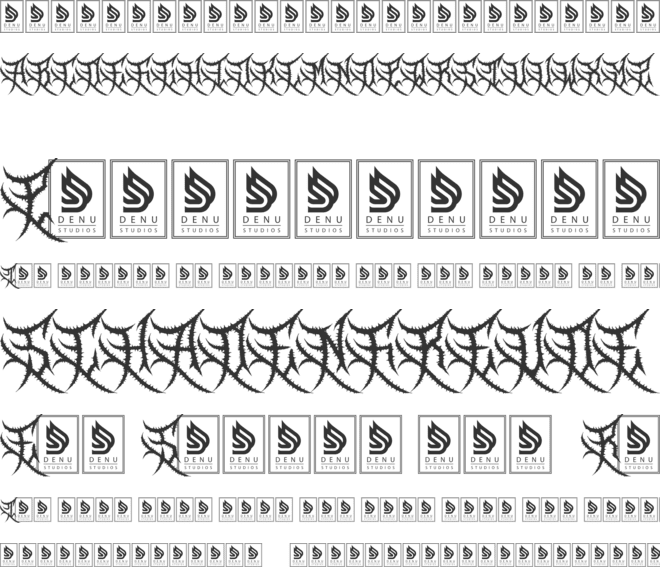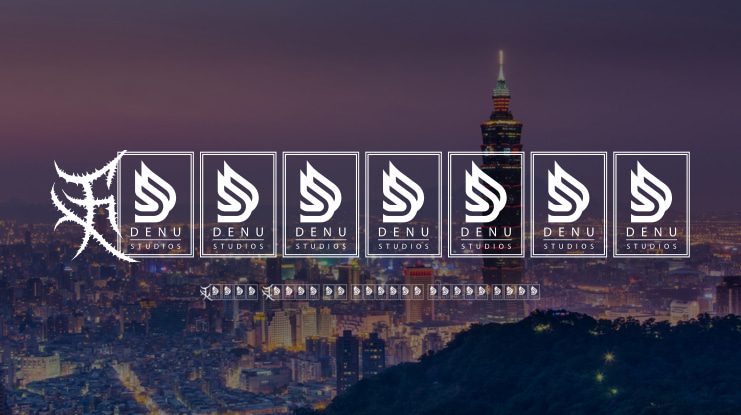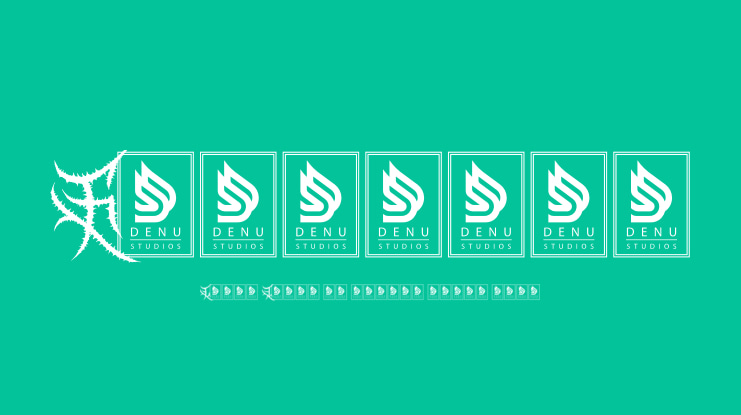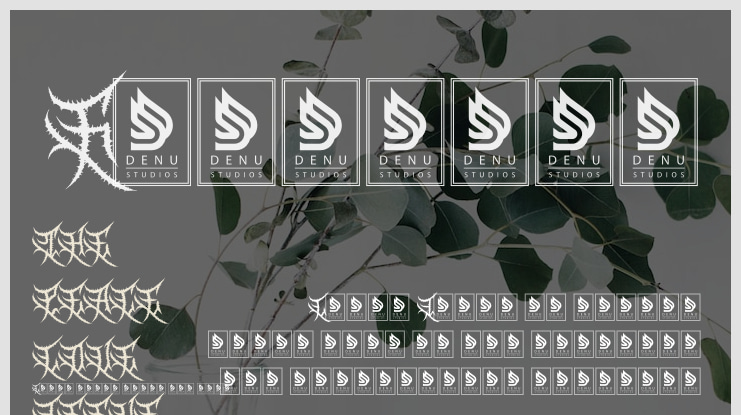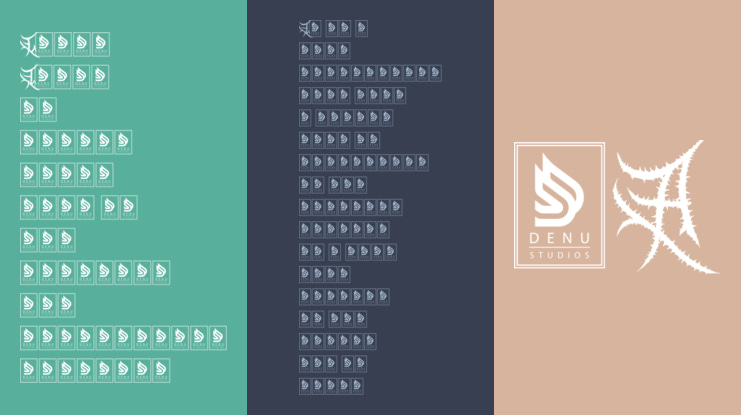
Furygore | Death Metal Font is perfect for a variety of projects, including:
- Logos - Branding projects - Homeware designs - Product packaging - Mugs - Quotes - Posters - Shopping bags - T-shirts - Book covers - Name cards - Invitation cards - Greeting cards - Labels - Photography - Watermarks - Special events
Essentially, any creative project that demands a Death Metal Font touch can benefit from Furygore.